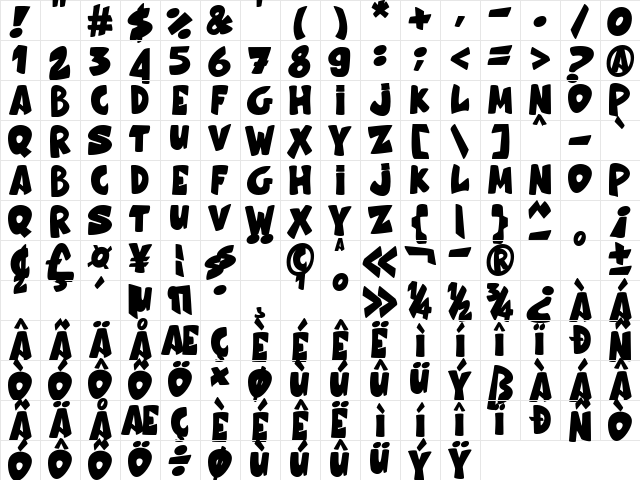
Honey Bear Regular
Designer: Letterara 2019
Complete Honey Bear Regular glyph index. Displaying only characters natively supported by Honey Bear Regular font.
Design Context for Honey Bear
Honey Bear is a composed and adaptable typeface that performs quietly and consistently across a wide range of design contexts.